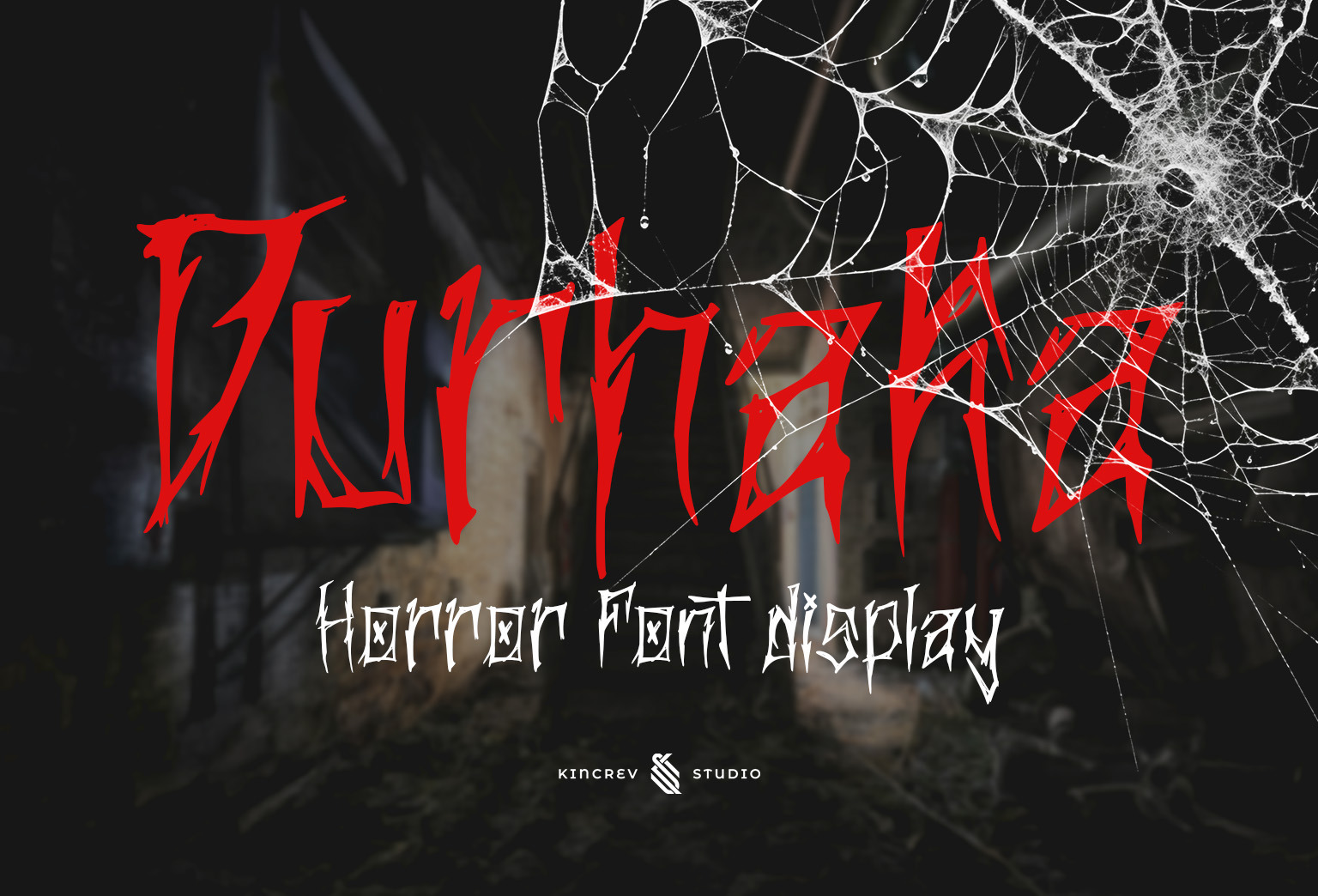
Durhaka - Horror Font Display
Hello, Everyone! Ready to make your branding design outstanding? If you need to create a creepy, artsy, and modern look for your business, work on a poster for an event, or whatever your projects are, Durhaka - Horror Font Display is the perfect one for you.
Durhaka, a display decorative font is font for you to get your designs with creepy, artsy, and modern look. It is made in uppercase & lowercase which are easy on the eyes and nice to look at, and easy to read. This font is designed to bring your brandings to life and add a touch of sporty modern, bold, fun and style.
Durhaka fits for any design projects, such as posters, banners, logos, book covers, album covers, quotes, invitations, greeting cards, name cards, headings, printed products, merchandise, social media, etc. Find out more ways to use this font by taking a look at the font preview.